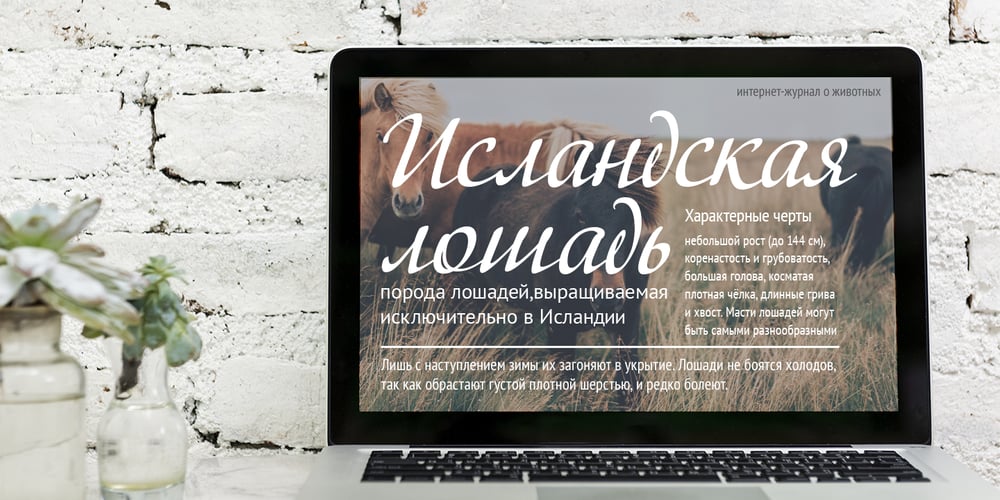
Adventure Font Family was designed by Natalia Vasilyeva and published by ParaType. Adventure contains 1 styles and family package options. PT Adventure™ was designed by Natalia Vasilyeva and licensed by ParaType in 2001. An original calligraphic script. For use in advertising and display typography.